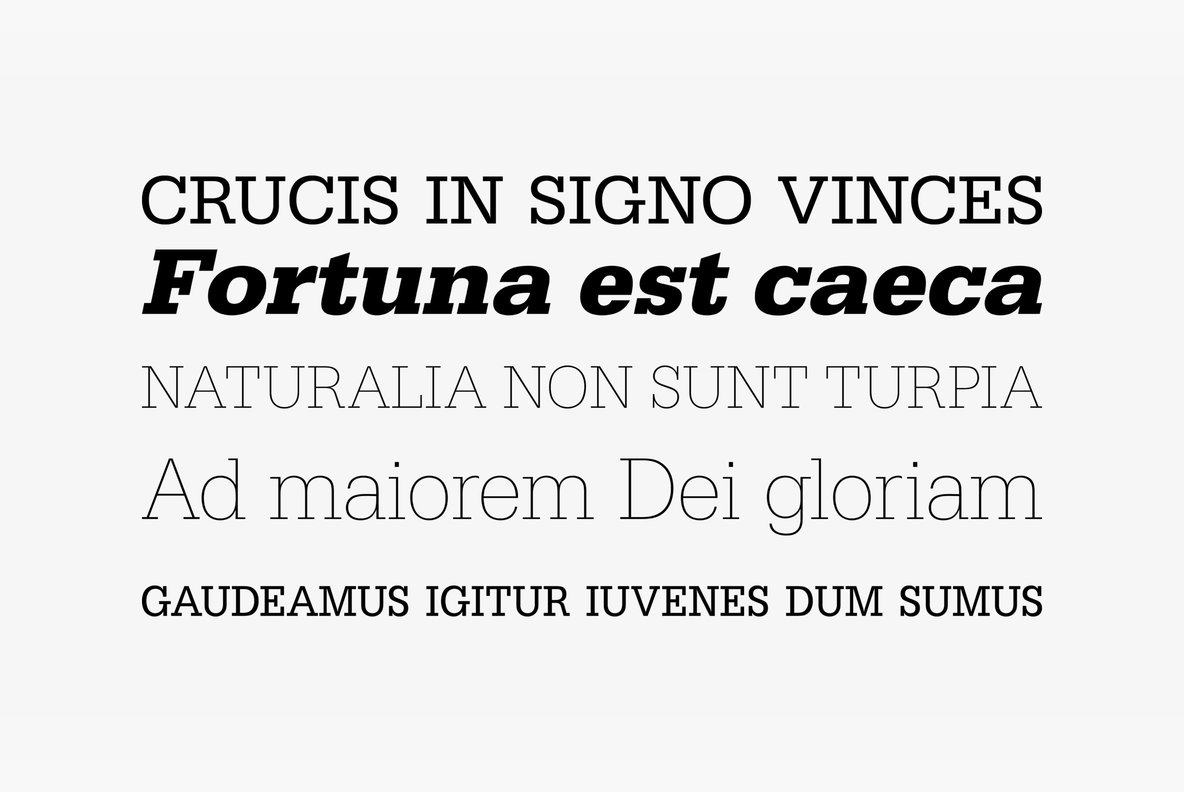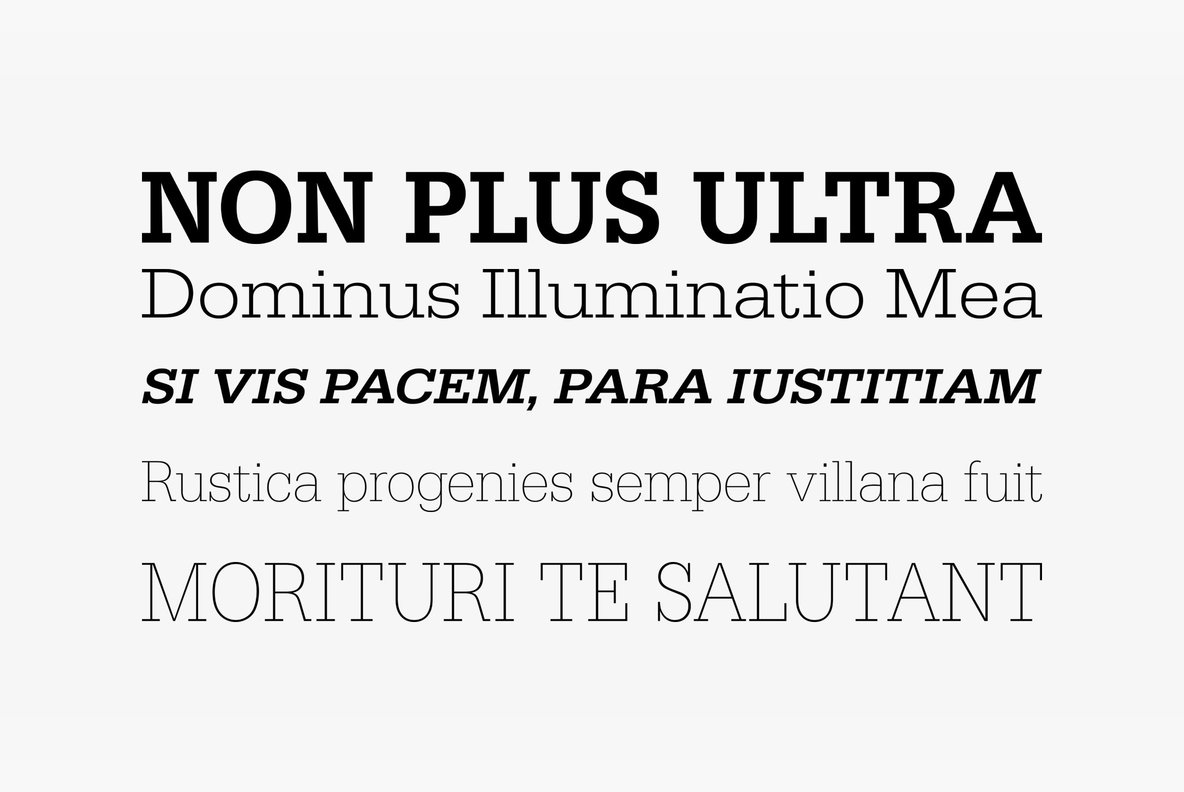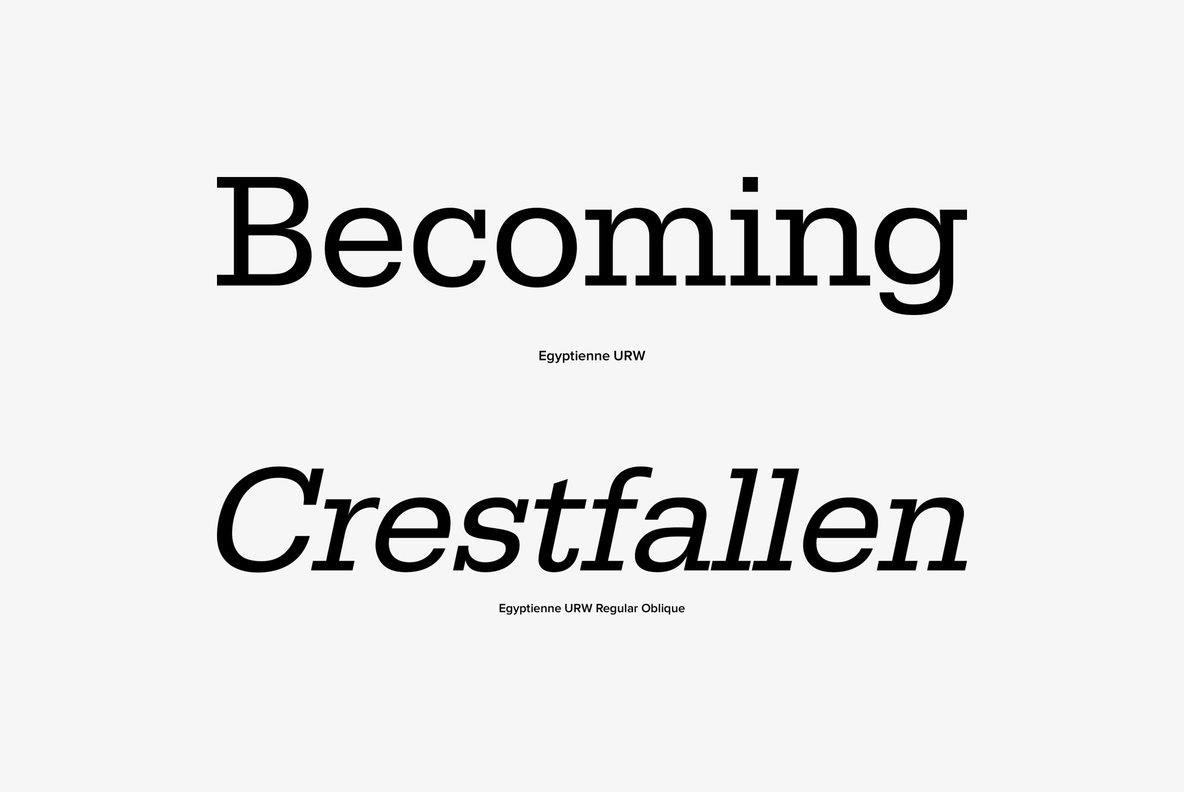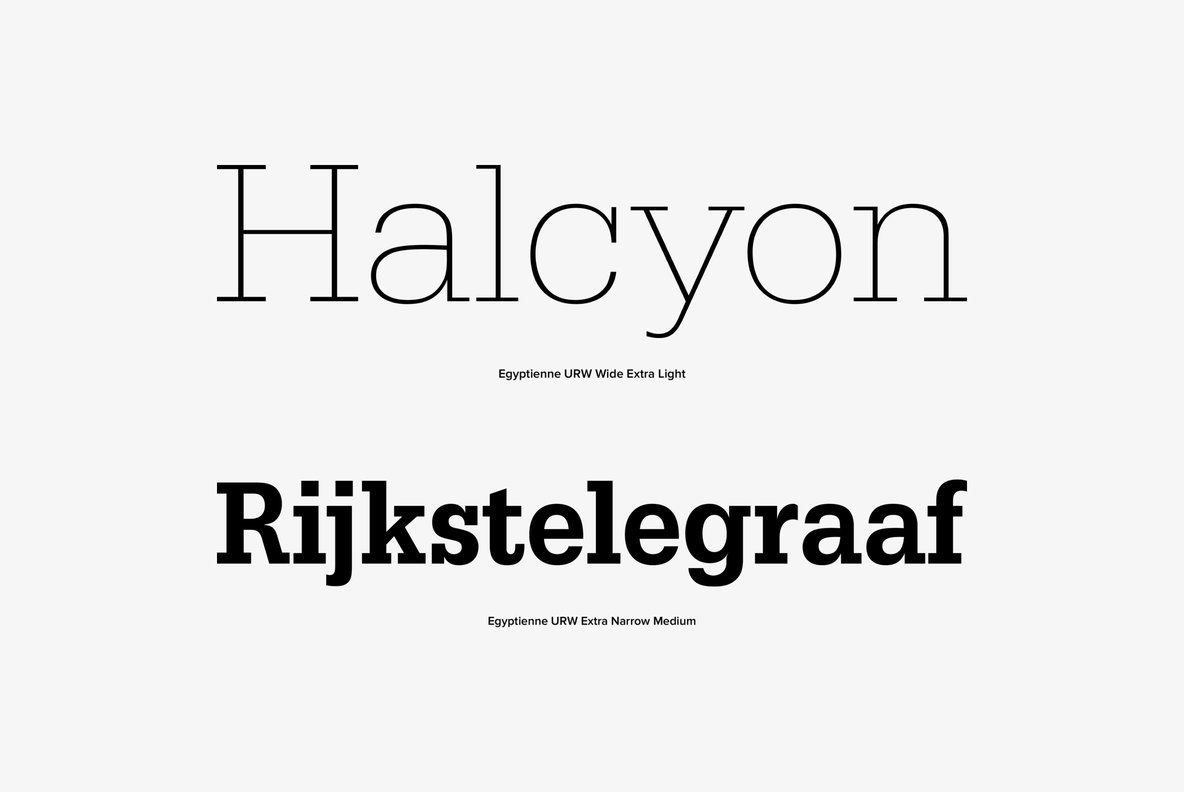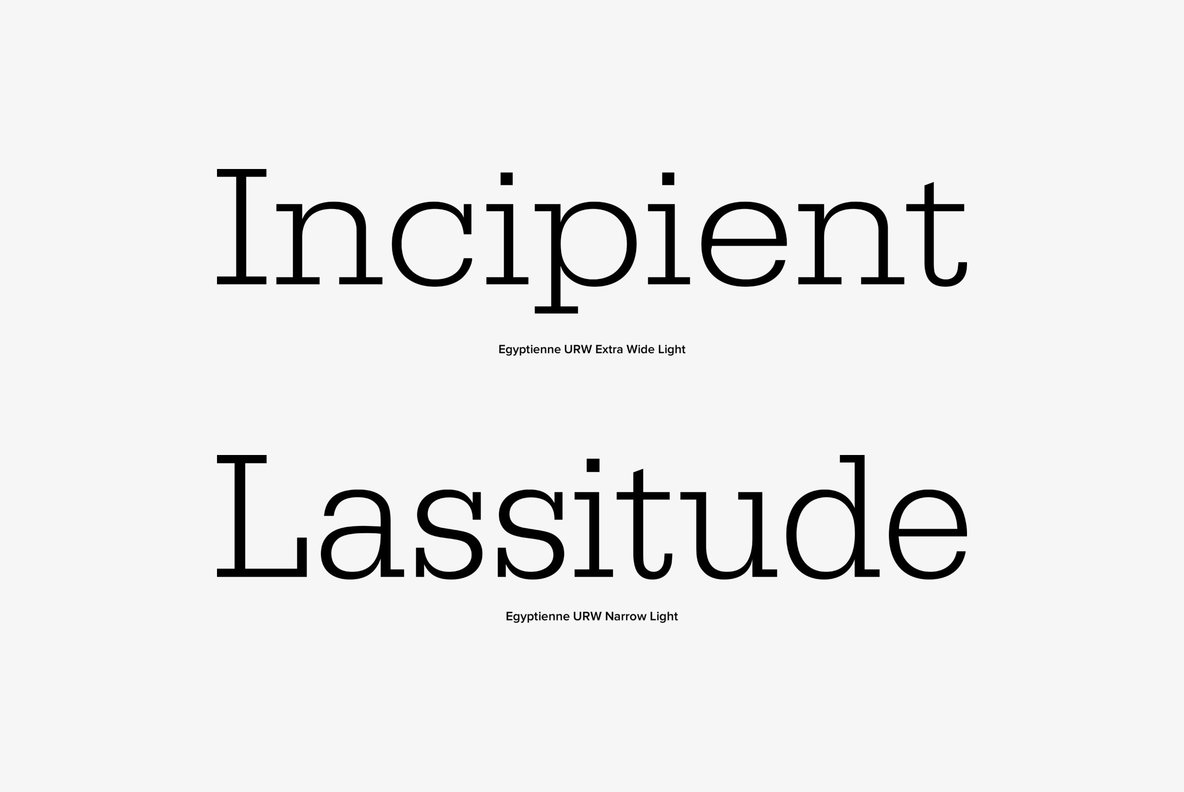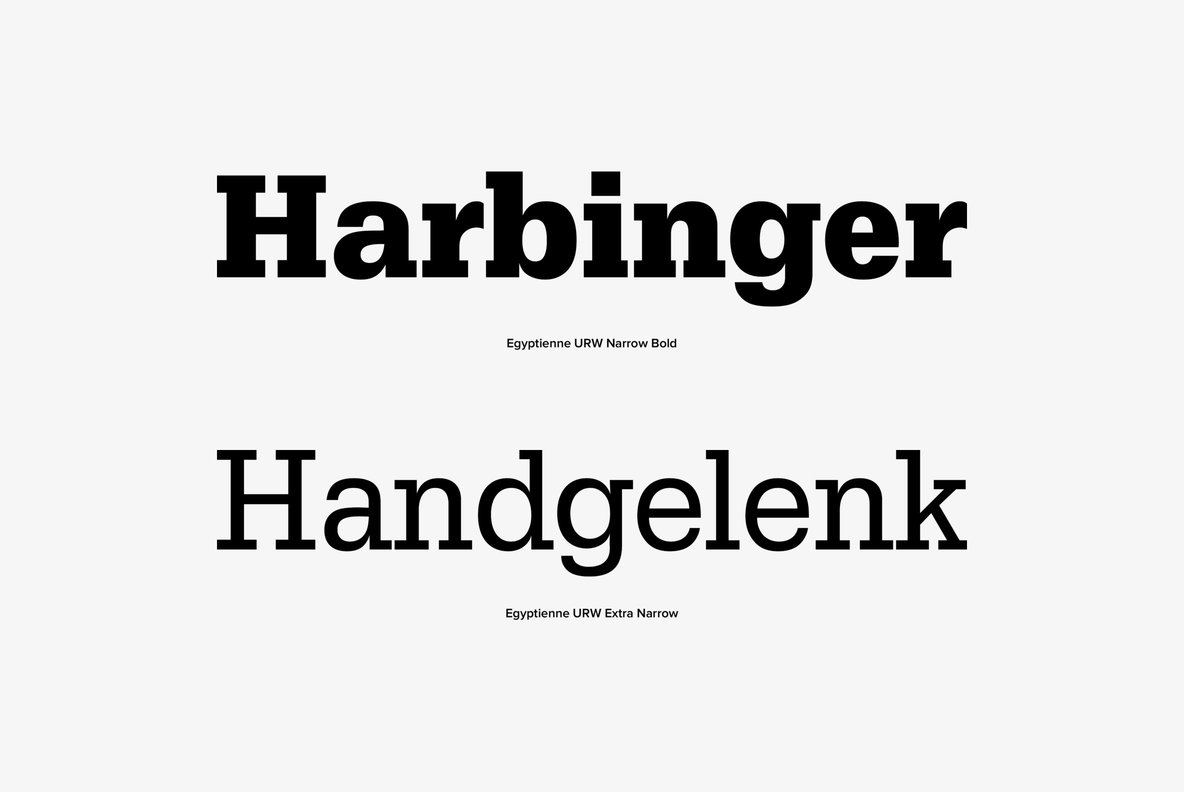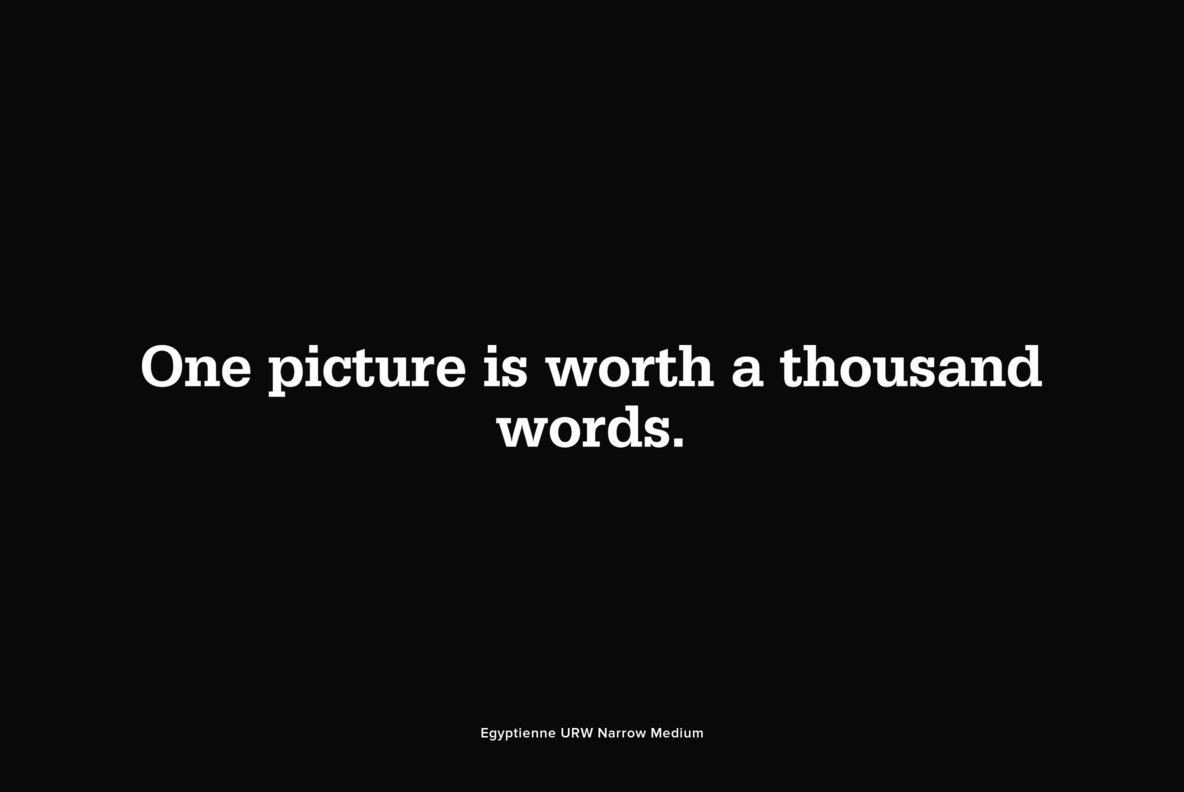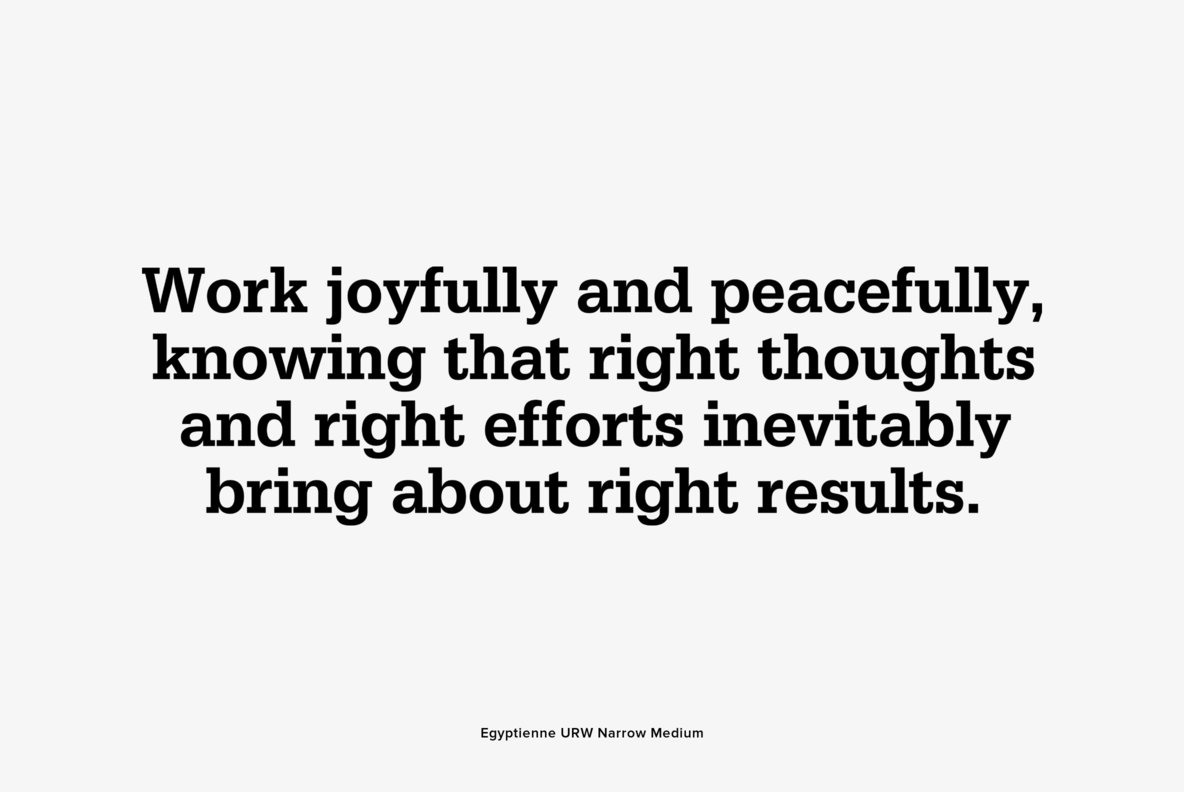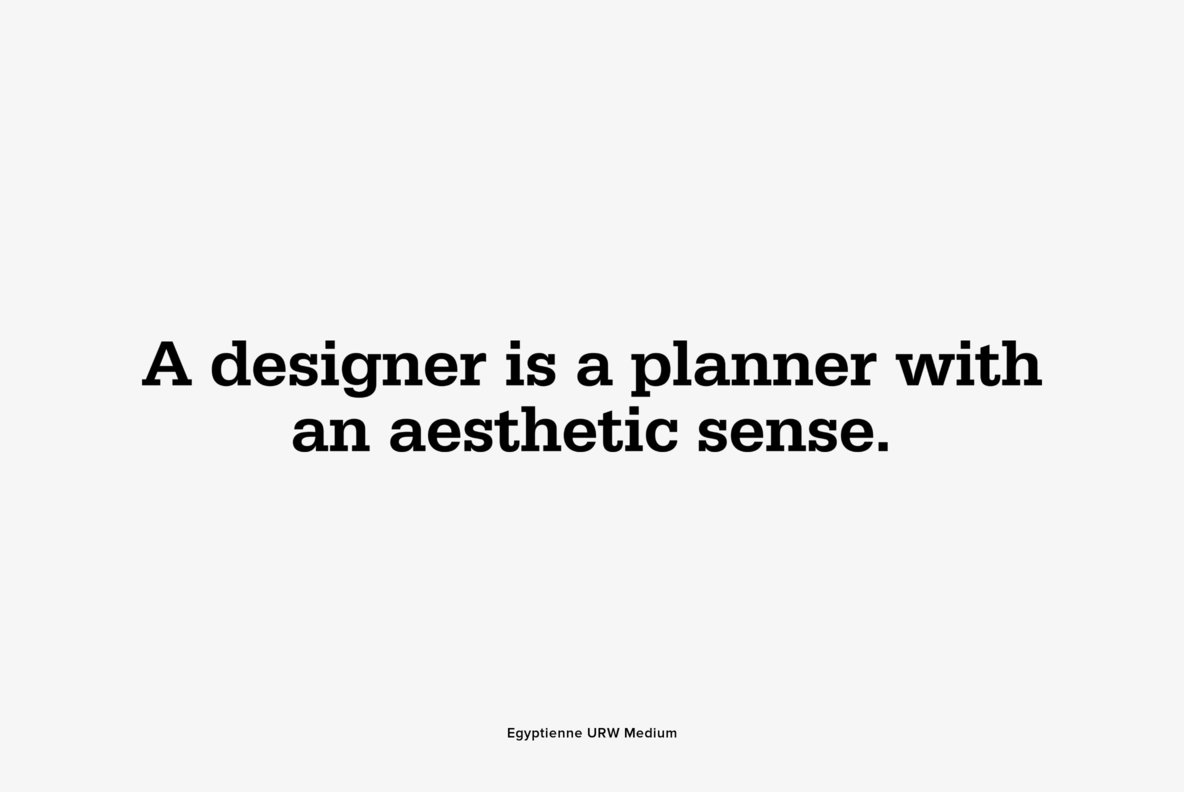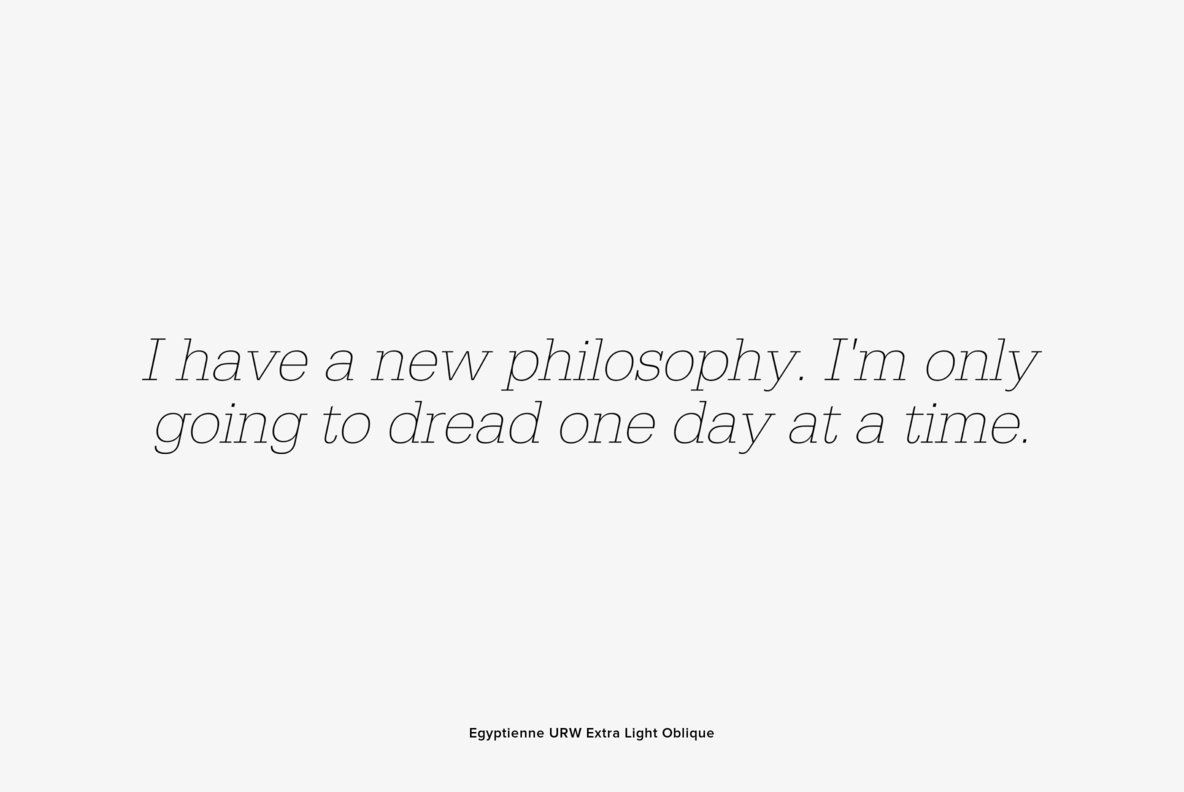
URW Egyptienne
URW Egyptienne is a powerful slab-serif family (with over 50 styles) released by URW Studio in 1994. URW Egyptienne contains West, East, Turkish, Baltic, Romanian language support.